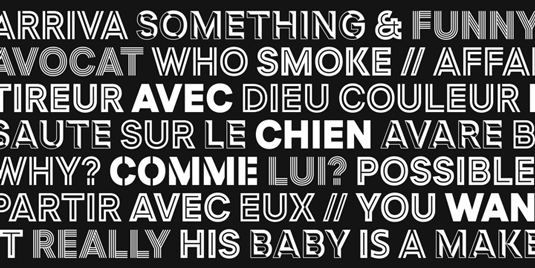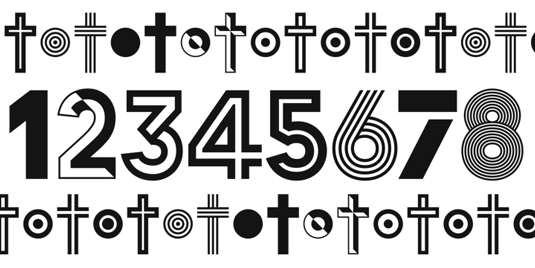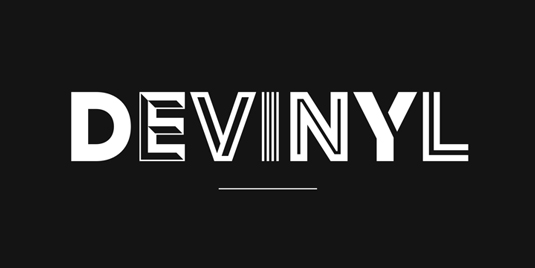
Font of the day: Devinyl
Devinyl by Nico Inosanto
Today's typeface of choice is Devinyl, a monolinear typeface family which mixes different styles, making it perfect for magazine and poster design. Composed by type designer Nico Inosanto, entirely in captials, the design is inspired by old grotesk from late 19th century.